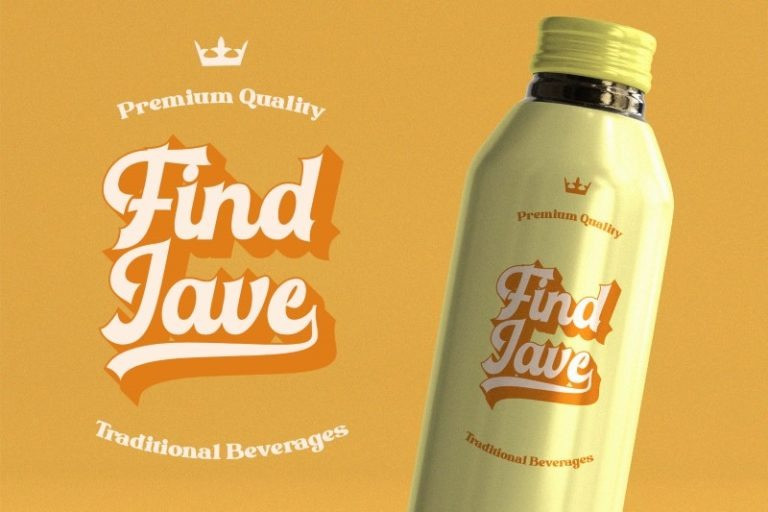
American Sporty Display Font
Introducing our new release, American Sporty Modern Display Typeface. This typeset is perfect for brand logo, invitations, greeting card, or even any kind of project. With multilingual feature and style variations, this typeface would further enhance the aestethical aspect of your work.
Designer Name: DisplayStudio_